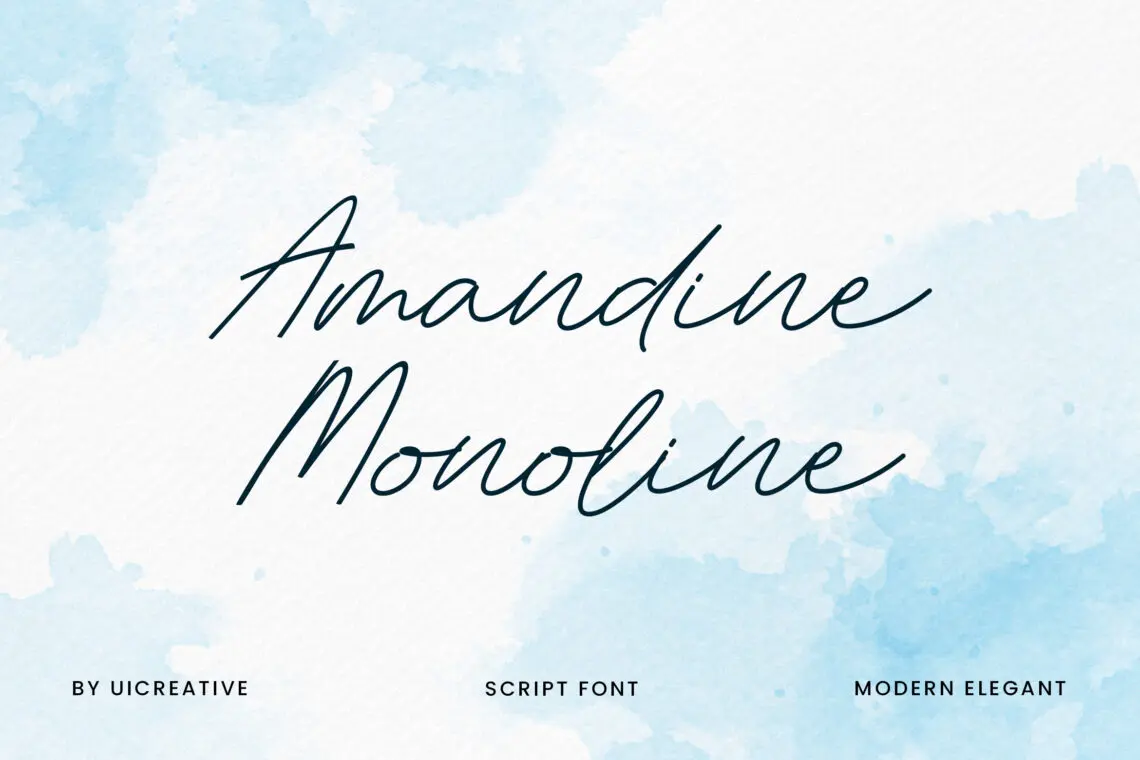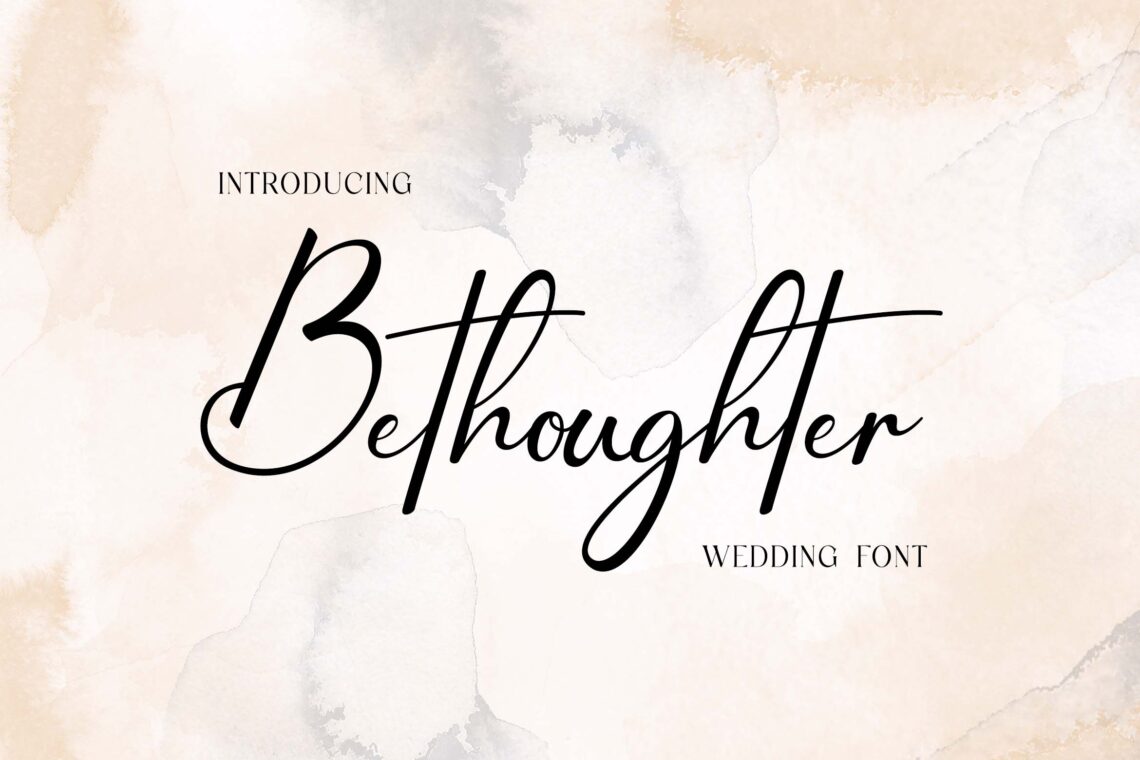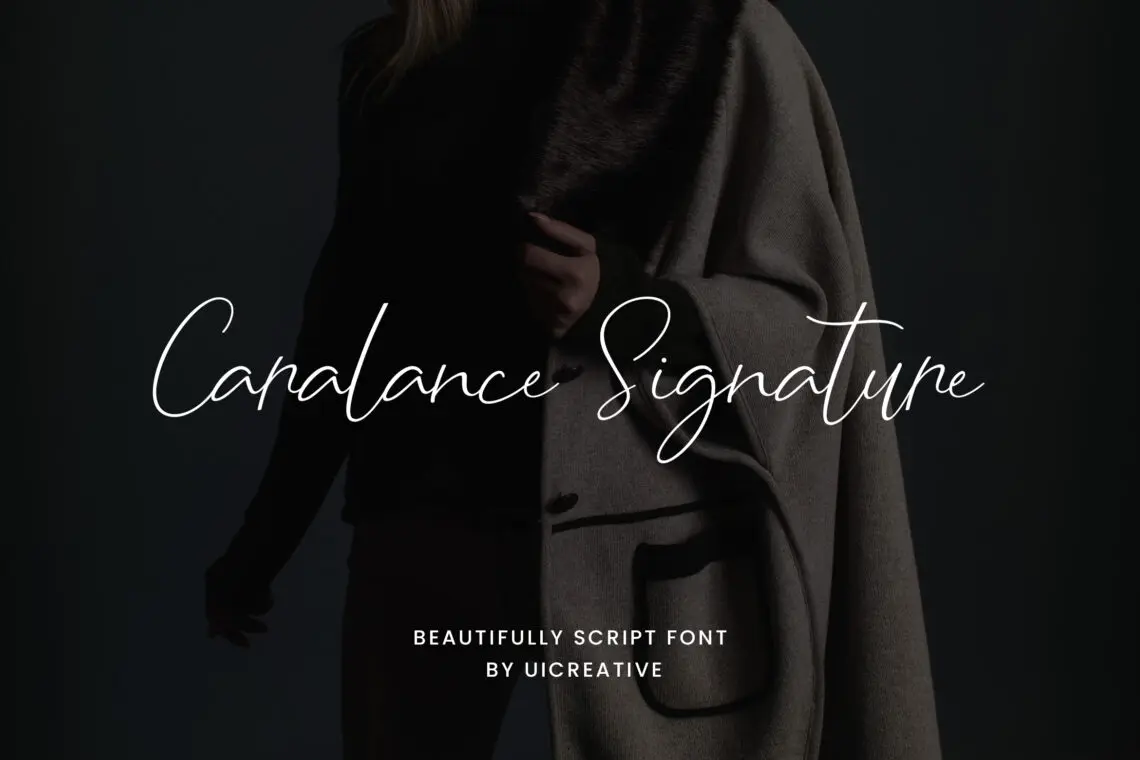
10 Best Handwriting Font 2025
Handwriting fonts continue to captivate designers and audiences alike with their personal, authentic feel. As we step into 2025, the demand for stylish, natural-looking handwriting fonts is higher than ever, especially in branding, social media, and digital content creation. The right handwriting font 2025 can transform a simple project into something memorable and emotionally engaging.
In this article, we highlight the 10 best handwriting font 2025 that combine modern trends with timeless charm, perfect for adding a unique and relatable touch to your creative works.
1. Grace Signature Bursh Signature Font
Grace Signature Bursh Signature Font
The Grace Signature Brush Signature Font is a beautifully crafted typeface that captures the natural flow and elegance of authentic handwriting. Featuring smooth brush strokes and graceful curves, this font is perfect for creating sophisticated and personal designs. Ideal for branding, logos, wedding invitations, social media graphics, and signature-style projects, the Grace Signature font brings a touch of artistry and refinement to any work. Its organic, fluid appearance adds warmth and character, making it a versatile choice for designers seeking a stylish, modern, and elegant handwritten look.
2. Boutonnieres Beautiful Wedding Font
Boutonnieres Beautiful Wedding Font
The Boutonnieres Beautiful Wedding Font is a romantic and elegant typeface designed to bring a timeless charm to wedding and event designs. Featuring delicate curves, graceful strokes, and a sophisticated handwritten style, this font is perfect for wedding invitations, save-the-date cards, greeting cards, logos, and other special occasion materials. The Boutonnieres font captures the essence of love and celebration with its refined and flowing letterforms, adding a luxurious and heartfelt touch to any design. Ideal for couples, event planners, and designers, this font ensures every project feels personal, elegant, and unforgettable.
3. Marshland Dropped Casual Handwritten Font
Marshland Dropped Casual Handwritten Font
The Marshland Dropped Casual Handwritten Font is a relaxed and stylish typeface that captures the effortless charm of natural handwriting. With its slightly dropped baseline and casual, flowing strokes, this font exudes a laid-back yet modern aesthetic, perfect for projects that seek authenticity and personality. Ideal for branding, social media posts, invitations, blog graphics, and creative advertising, the Marshland Dropped font brings a warm, approachable feel to any design. Its combination of casual elegance and easy readability makes it a versatile choice for designers aiming to add a personal, contemporary touch to their work.
4. Angelina Rosemary Script Wedding Font
Angelina Rosemary Script Wedding Font
​The Angelina Rosemary Script Wedding Font is an elegant and flowing script typeface designed to add a touch of romance and sophistication to your special occasions. With its graceful curves and delicate strokes, this font captures the essence of handwritten calligraphy, making it ideal for wedding invitations, stationery, logos, and other formal event materials. Its high contrast between thick and thin lines, along with ornate uppercase letters and consistent lowercase characters, provides a harmonious and refined appearance suitable for both digital and print designs. Whether you’re crafting a heartfelt message or branding a luxury event, the Angelina Rosemary Script offers versatility and timeless beauty to elevate your design projects.
5. Bethoughter Script Wedding Font
Bethoughter Script Wedding Font
The Bethoughter Script Wedding Font is an elegant and beautifully crafted typeface that captures the charm of handwritten calligraphy with a modern touch. Featuring graceful curves, flowing strokes, and a natural handwritten feel, this font is perfect for wedding invitations, branding projects, event stationery, and romantic-themed designs. Its refined and stylish character ensures a sophisticated yet warm aesthetic, adding a personal and timeless touch to any project. Designed for versatility and easy readability, the Bethoughter Script font is ideal for designers seeking to create memorable and heartfelt visual experiences.
6. Mandalina Classical Script Font
Mandalina Classical Script Font
The Mandalina Classical Script Font is a sophisticated and elegant typeface that seamlessly blends traditional calligraphy with contemporary design elements. Characterized by its graceful curves and flowing strokes, Mandalina exudes a timeless charm, making it an ideal choice for a variety of creative projects. Whether you’re designing wedding invitations, branding materials, logos, or editorial content, this font adds a touch of refinement and class. Its versatility ensures it complements both formal and informal designs, providing a harmonious balance between classic beauty and modern aesthetics.
7. Shadhowiest Handwritten Font
Shadhowiest Handwritten Font
The Shadhowiest Handwritten Font is a stylish and expressive typeface that captures the authentic charm of natural handwriting. With its smooth strokes, organic flow, and a slightly playful touch, this font brings warmth and personality to any design project. Perfect for branding, social media graphics, invitations, greeting cards, and editorial designs, the Shadhowiest font adds a casual yet refined feel to your work. Its versatility and handcrafted appearance make it an ideal choice for designers looking to infuse their creations with a personal, modern, and approachable vibe.
8. Amandine Monoline Modern Handwritten Font
Amandine Monoline Modern Handwritten Font
The Shadhowiest Handwritten Font is a stylish and expressive typeface that captures the authentic charm of natural handwriting. With its smooth strokes, organic flow, and a slightly playful touch, this font brings warmth and personality to any design project. Perfect for branding, social media graphics, invitations, greeting cards, and editorial designs, the Shadhowiest font adds a casual yet refined feel to your work. Its versatility and handcrafted appearance make it an ideal choice for designers looking to infuse their creations with a personal, modern, and approachable vibe.